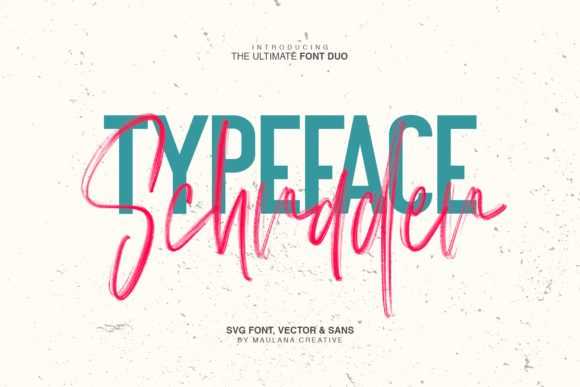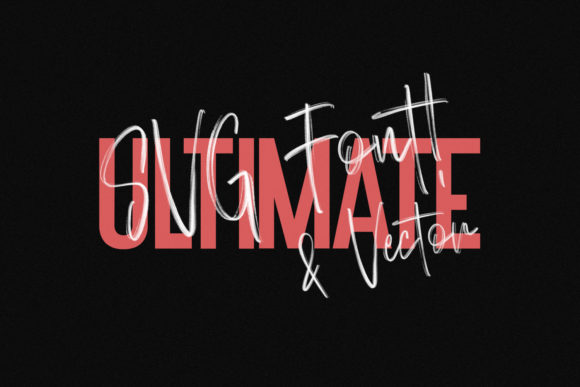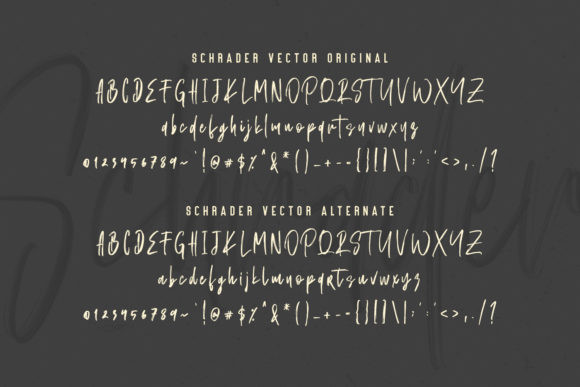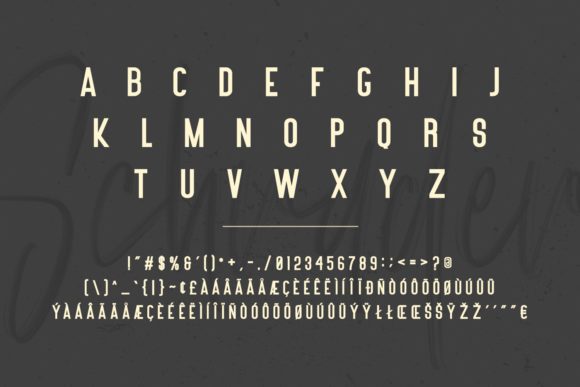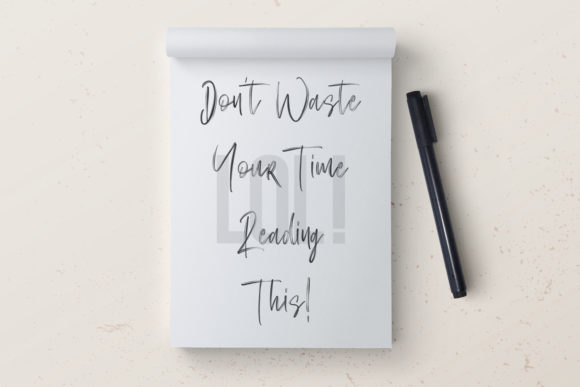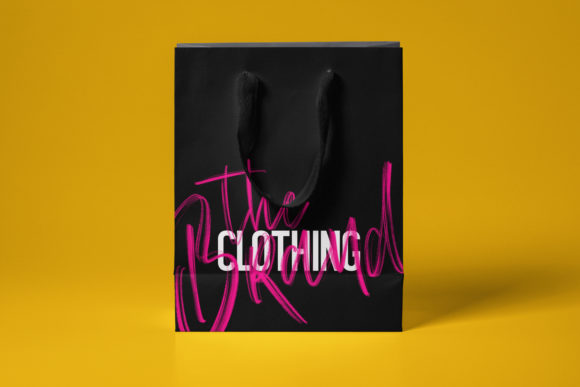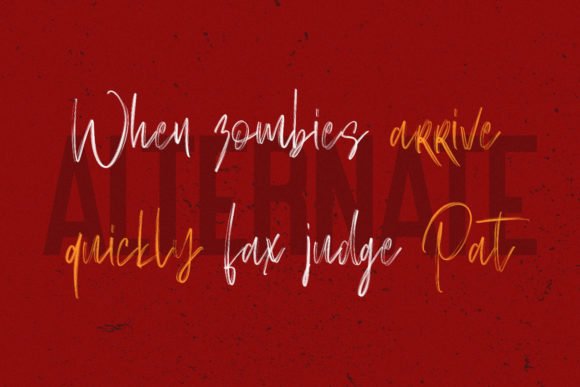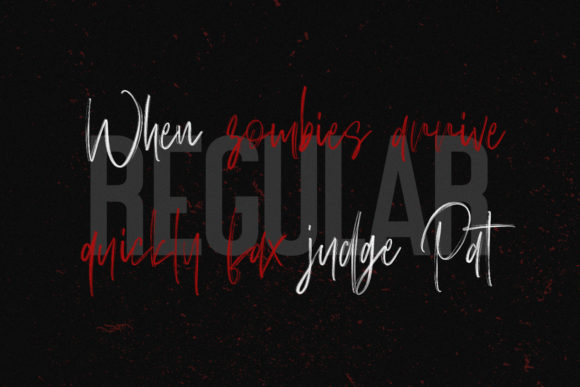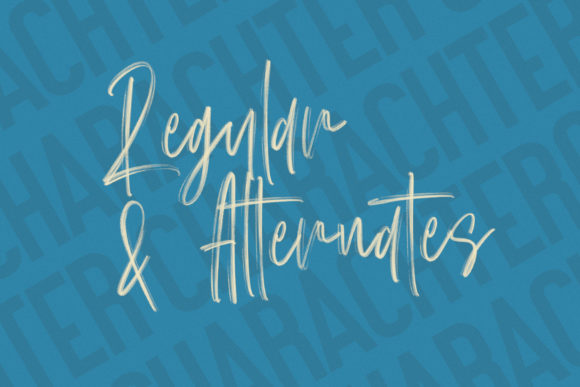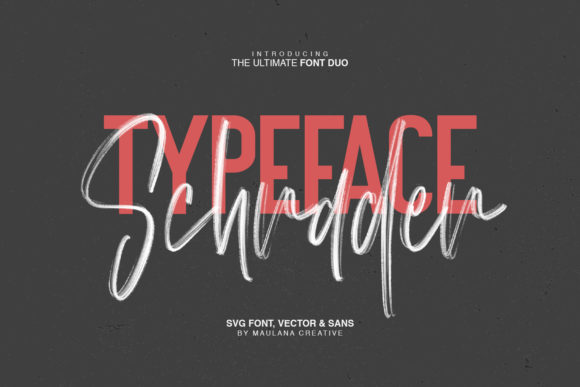
Schrader Font
About Schrader Font
Schrader is a modern font family featuring authentic brush strokes. Perfect for giving your designs a handcrafted feel!